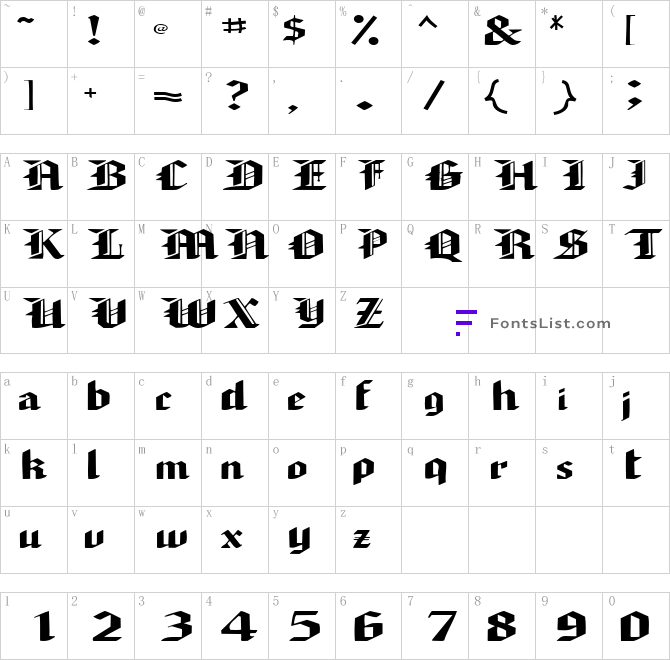
- Font Name:ArmedaSSK
ArmedaSSK-Bold.ttf is a very beautiful artistic font, ArmedaSSK-Bold.ttf is widely used in the design and printing of various books and pictures,ArmedaSSK-Bold.ttf has a strong visual impact,ArmedaSSK-Bold.ttf is a commonly used font in newspapers, magazines and books, and is used in posters, e-commerce Poster design, store design, logo design, font design and other fields.ArmedaSSK-Bold.